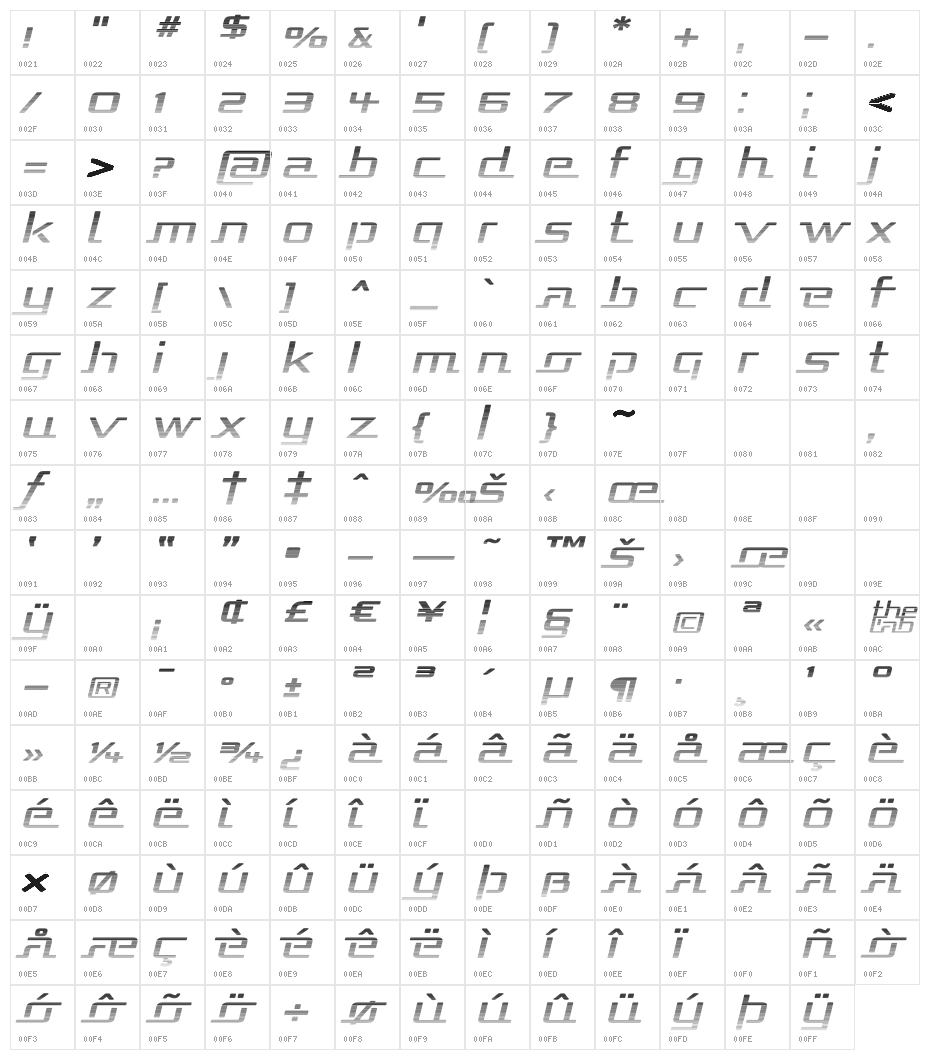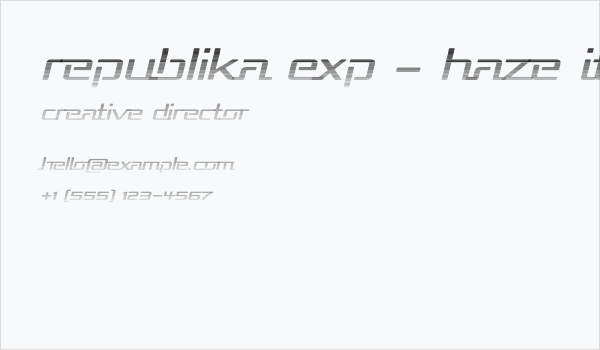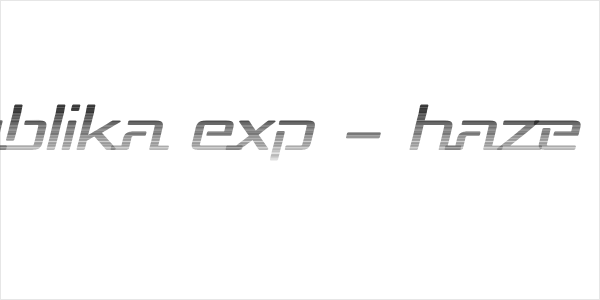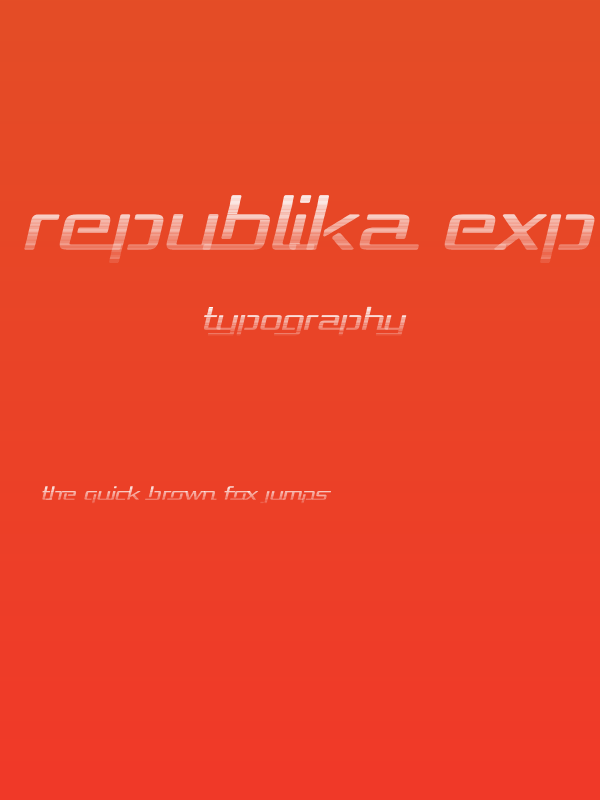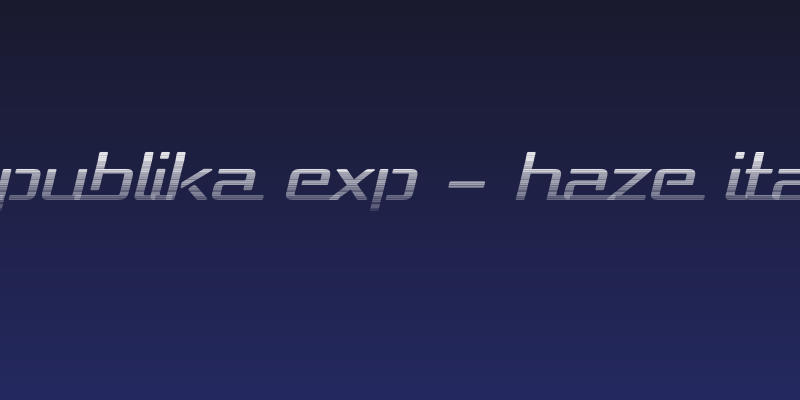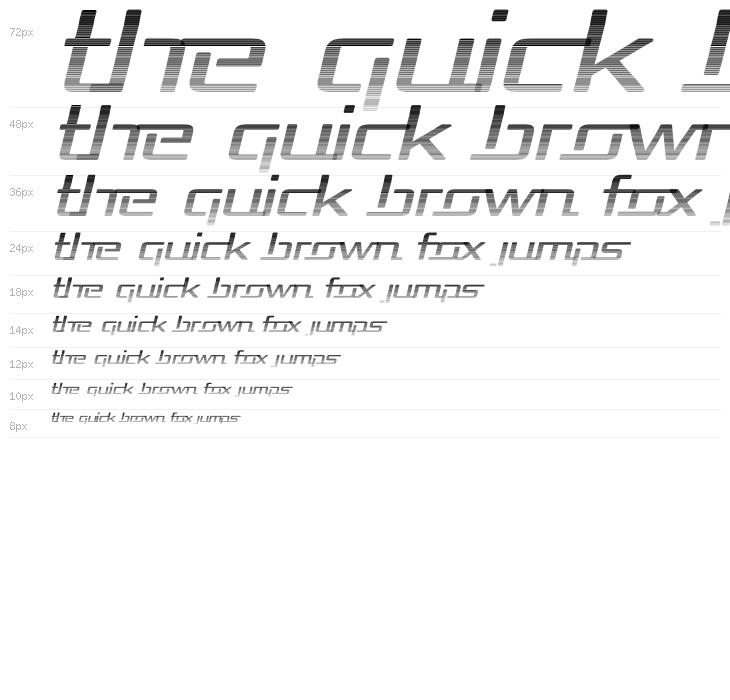
Republika Exp - Haze Italic Font
Republika Exp - Haze Italic Description
This font features a futuristic and sleek design with a distinctly italicized slant, giving it a dynamic and forward-moving appearance. The characters are constructed with a blend of sharp angles and smooth curves, creating a sense of motion and speed. The use of varying line thicknesses adds depth and a three-dimensional effect, enhancing its modern aesthetic. The font maintains a consistent baseline, ensuring readability while offering a unique visual style. Its geometric nature is balanced with a touch of softness in the curves, making it versatile for various design applications.
| Use Case | Headlines, Logos, Digital Interfaces |
| Proposed Projects | Ideal for technology branding, sci-fi movie posters, video game titles, and modern digital interfaces. |